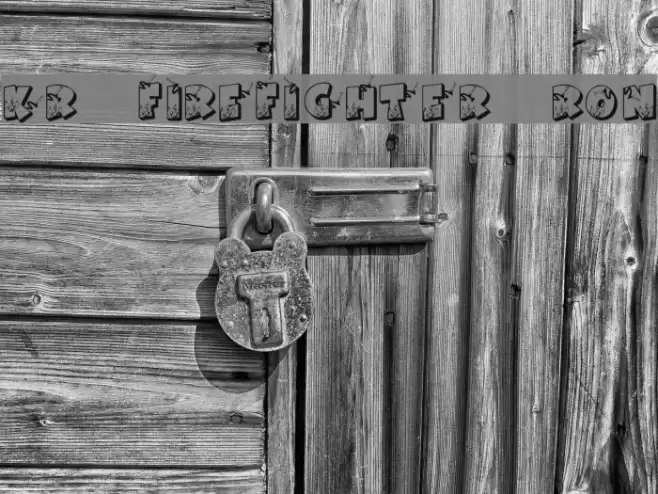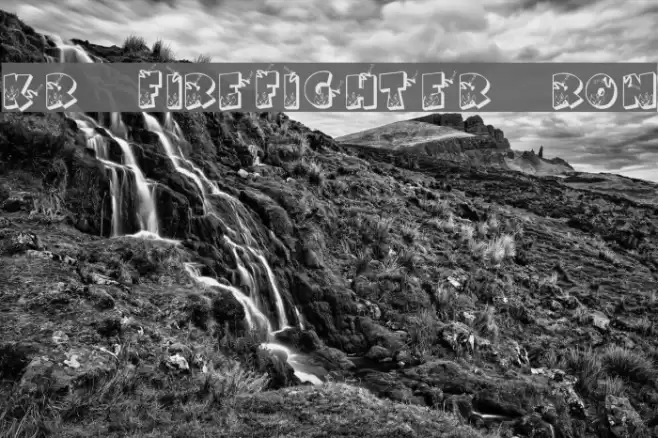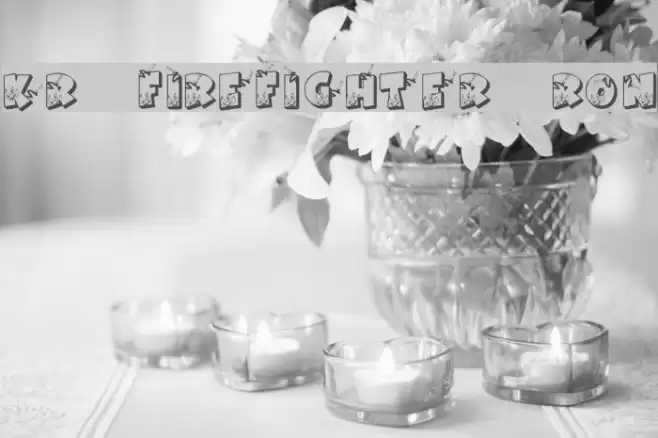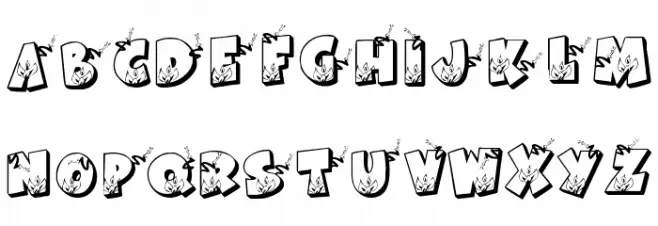
KR Firefighter Ron Font
KR Firefighter Ron Description
This font features bold, three-dimensional letters with a playful and dynamic design. Each character is adorned with flame-like accents, giving it a fiery and energetic appearance. The thick outlines and shadow effects enhance the 3D illusion, making the letters stand out prominently. The font combines elements of both cartoonish and graffiti styles, making it ideal for creative and eye-catching designs. The uppercase letters are consistent in their boldness and decorative elements, ensuring a cohesive look across any text. This font is particularly suited for projects that require a strong visual impact and a sense of fun or excitement.
A bold, 3D font with flame accents and a playful, dynamic style from Uncategorized fonts.
- Proposed Projects: Ideal for posters, event flyers, video game graphics, and any project needing a bold, energetic look.